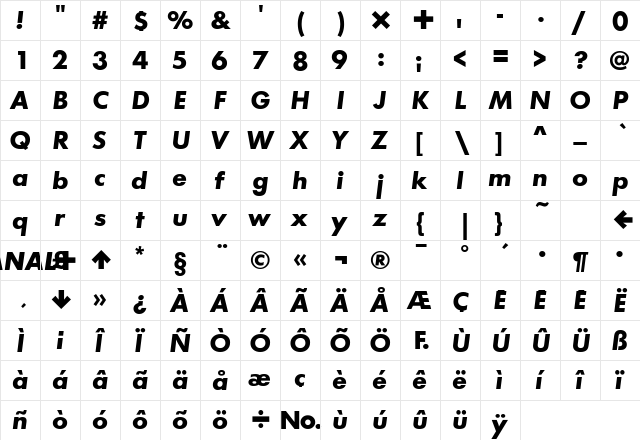
C+BoldItal Regular
Design Context for C+BoldItal Typeface
C+BoldItal takes a measured approach to typography — its balanced proportions and neutral character make it a reliable workhorse for both digital and print work. The heavy weight commands attention and anchors typographic hierarchies.